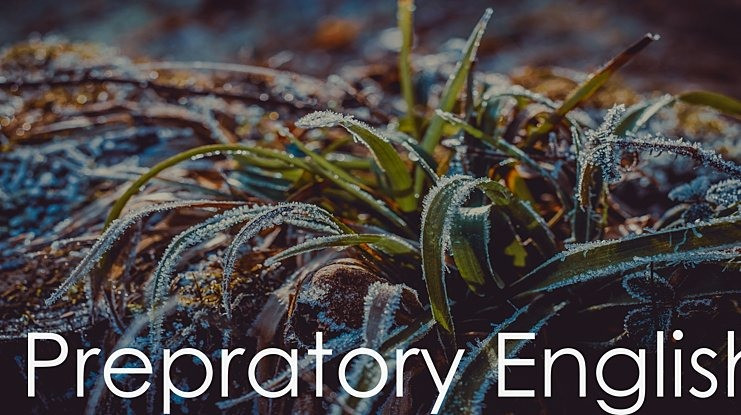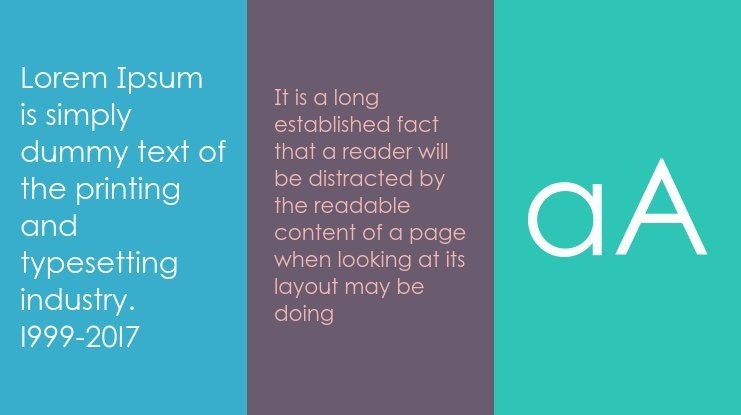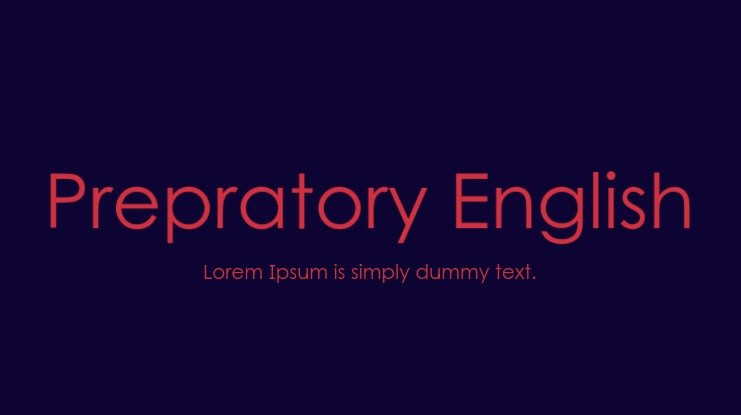
Prepratory English Sans Serif Font, is a sans serif stunning when combined or separately. This sans serif font style is legible and stunningly designed.
| Classification: | Sans Serif Fonts, Style / Aesthetic Fonts |